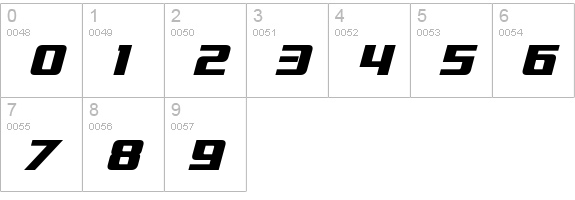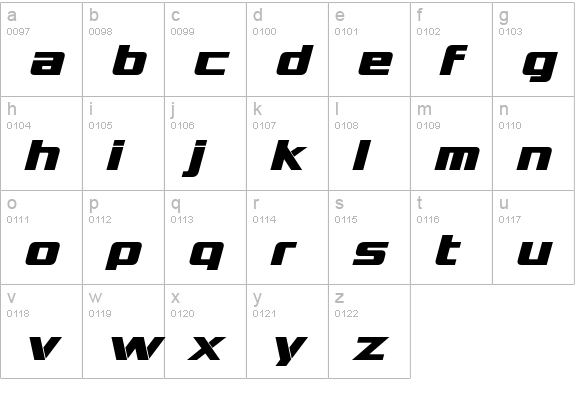
Interceptor Bold Italic Font Details
Interceptor Bold Italic is a strong, high-contrast, italic variant in the Interceptor typeface family \xE2\x80\x94 well suited to headlines, attention-grabbing titles, and strong calls-to-action.
Interceptor Bold Italic is a stunning and dynamic font that exudes confidence and power. With its bold and italicized design, this font commands attention and adds a touch of boldness to any project. Its sleek and modern look makes it perfect for headlines, logos, and branding materials. The Interceptor Bold Italic font is not only visually impressive but also highly versatile. It can be used in a variety of design projects, from professional presentations to edgy and modern websites. Its unique combination of boldness and elegance makes it suitable for both formal and informal settings. One of the best things about Interceptor Bold Italic is that it is freely available to download at FontsMarket.com. This means that you can easily access and use this font without any cost or restrictions. Whether you are a professional designer or a casual user, you can enjoy the benefits of this font without breaking the bank. With its wide range of language support, Interceptor Bold Italic is perfect for multilingual projects. It includes characters for various European languages, making it accessible to a global audience. This font also features a comprehensive set of punctuation marks, numerals, and special characters, ensuring that you have everything you need to create visually stunning designs. The sleek and modern design of Interceptor Bold Italic is bound to make a lasting impression on your audience. Its bold and italicized style adds a touch of sophistication and elegance to any project. From print to digital, this font will elevate your designs and help you stand out from the crowd. So why wait? Download Interceptor Bold Italic for free at FontsMarket.com and unlock the potential to create visually striking designs that leave a lasting impact. Whether you are a professional designer or a novice enthusiast, this font will take your projects to the next level. Don't miss out on this opportunity to enhance your design toolkit with this powerful and versatile font.